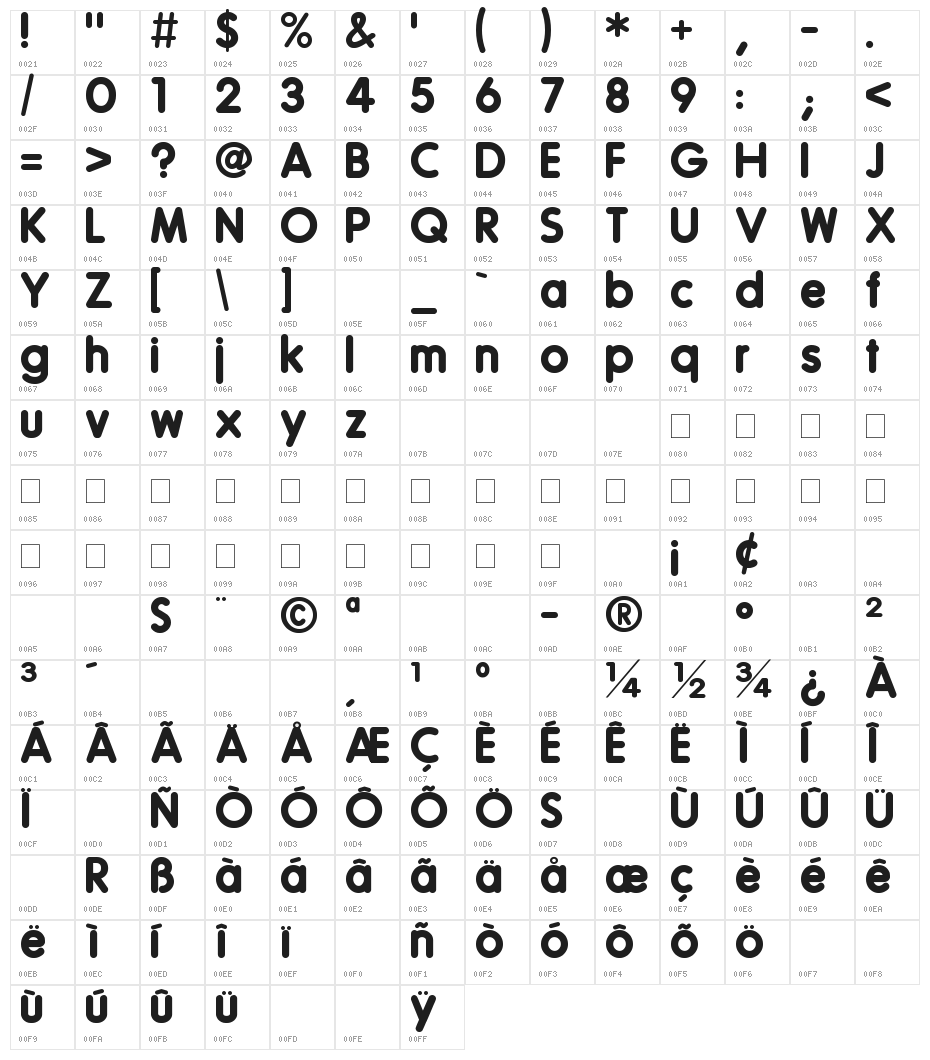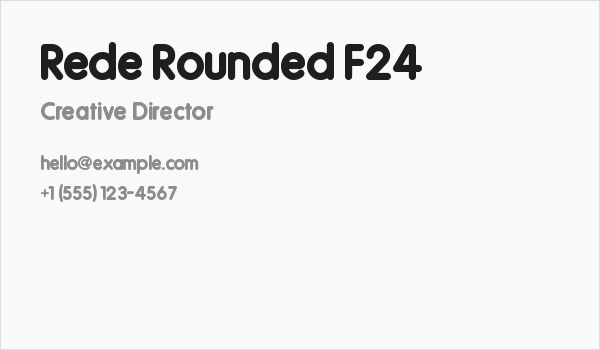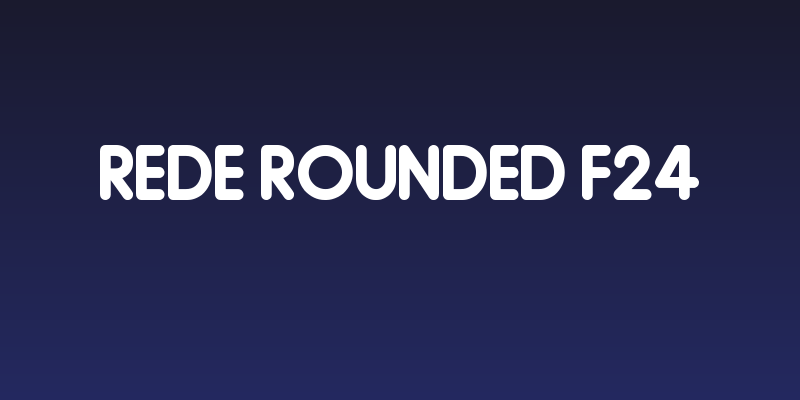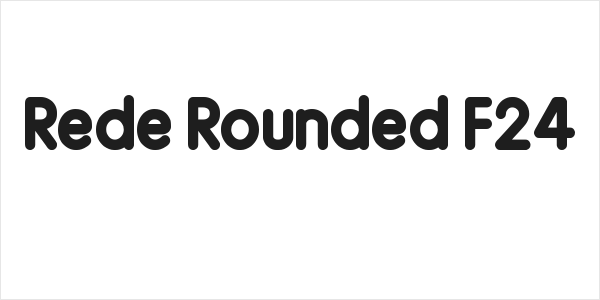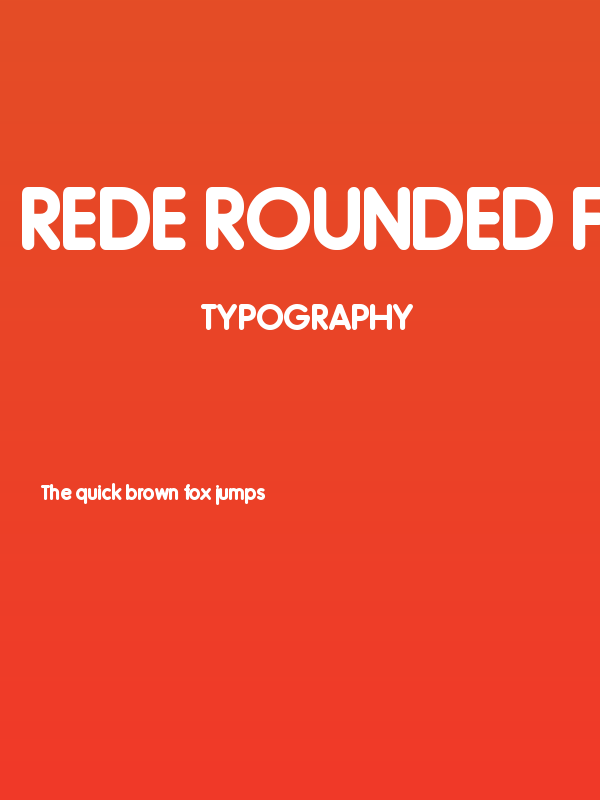
Rede Rounded F24 Font
Rede Rounded F24 Description
This font features a rounded, friendly appearance with smooth curves and a bold presence. The characters are evenly spaced, providing a clean and approachable look. The uppercase and lowercase letters maintain a consistent style, with rounded edges that soften the overall appearance. The numerals and special characters follow the same design principles, ensuring uniformity across all glyphs. This font is versatile, suitable for various design projects that require a modern and inviting aesthetic.
| Use Case | Logos, Headlines, Branding |
| Proposed Projects | Ideal for branding, packaging, children's books, and digital interfaces that require a welcoming and modern touch. |